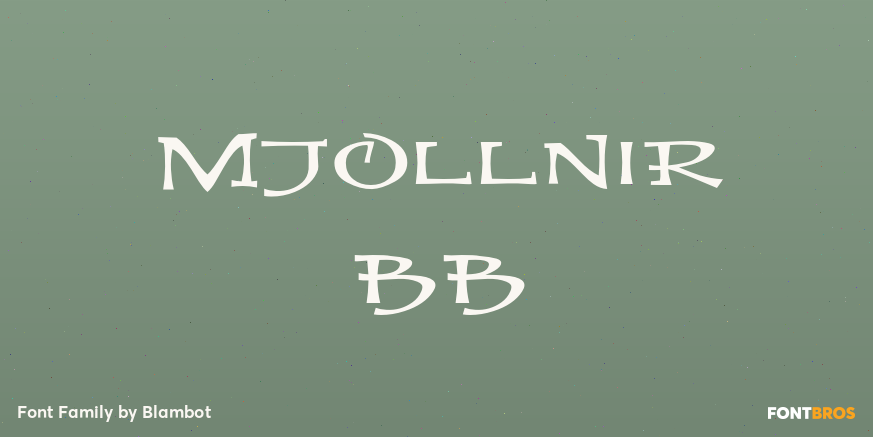
Mjollnir BB
About Mjollnir BB
Mjollnir is the name given to the hammer carried by the Norse god of thunder, Thor. Crafted by dwarves and destined to be used in the final battle of Ragnarok, this font has a compliment of European characters fit for a Viking!